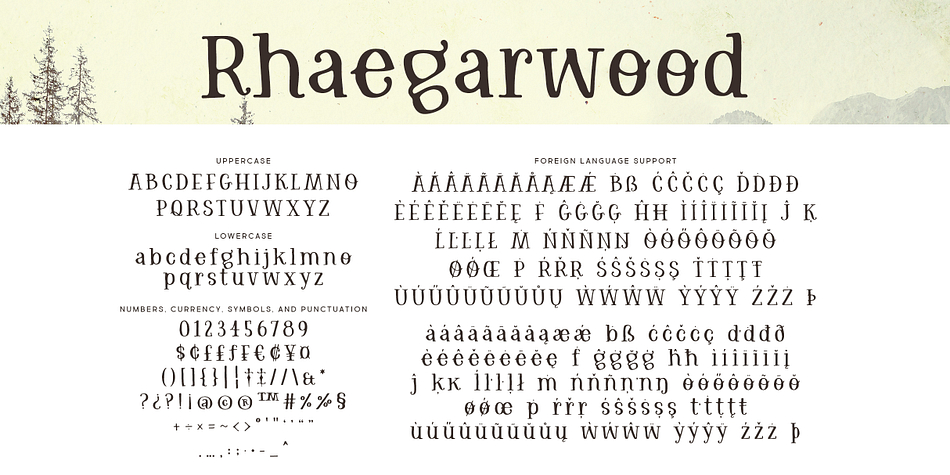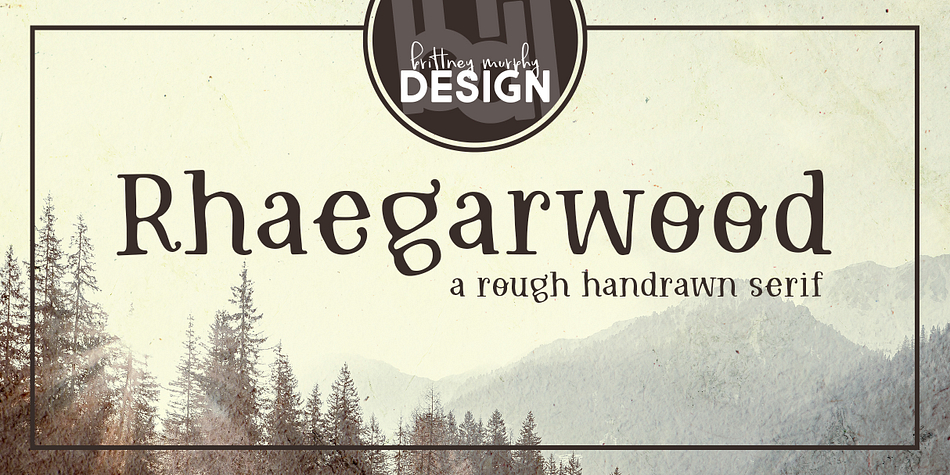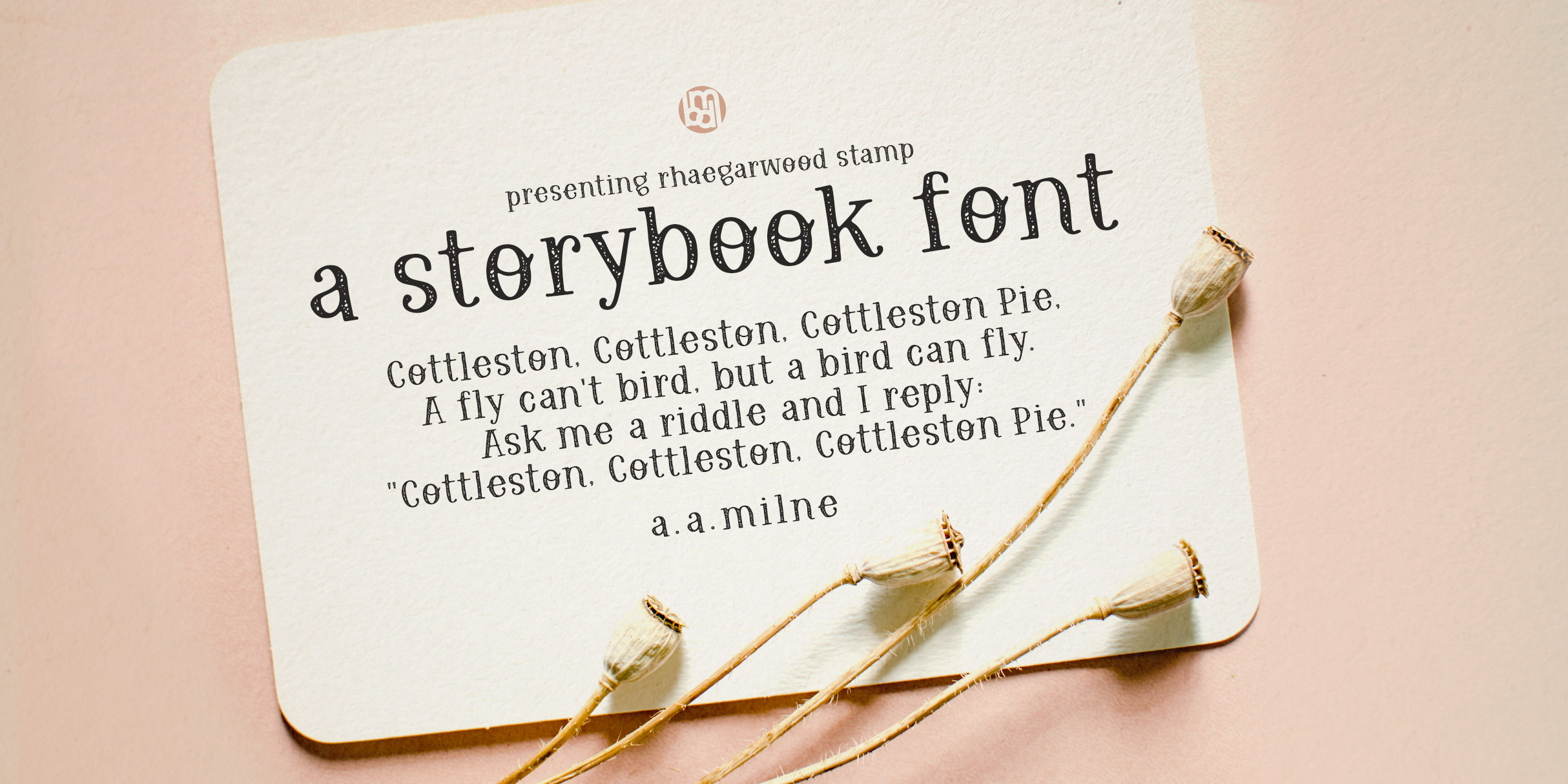
Rhaegarwood
Designed by Brittney Murphy, Rhaegarwood is a display serif, hand drawn and kids font family. This typeface has two styles and was published by Brittney Murphy Design.
The Rhaegarwood font family is a set of rustic serif fonts. Rhaegarwood was hand-drawn and is full of little imperfections that give it a homemade charm. Perfect for farmhouse decor or storybooks, this font family comes in two versions: Regular and Stamp.
With over 350 glyphs in the full version, this typeface supports most Latin-based languages.